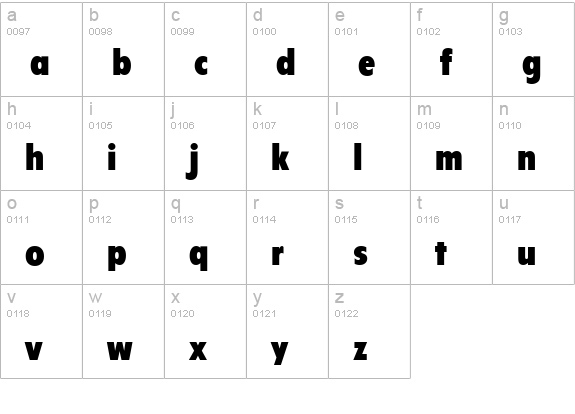
Flipper-Cd-Bold is a strong, high-contrast variant in the Flipper typeface family \xE2\x80\x94 well suited to headlines, attention-grabbing titles, and strong calls-to-action.
Flipper-Cd-Bold is a modern and dynamic font that exudes a sense of energy and playfulness. With its bold and eye-catching design, this font is perfect for making a statement in your designs. Whether you're working on a poster, logo, or branding project, Flipper-Cd-Bold will help you stand out from the crowd. What's even better is that Flipper-Cd-Bold is completely free to download at FontsMarket.com. That's right, you can access this stylish font at no cost and use it in your personal or commercial projects without any restrictions. So go ahead and elevate your designs with the striking appeal of Flipper-Cd-Bold, available for free only at FontsMarket.com.